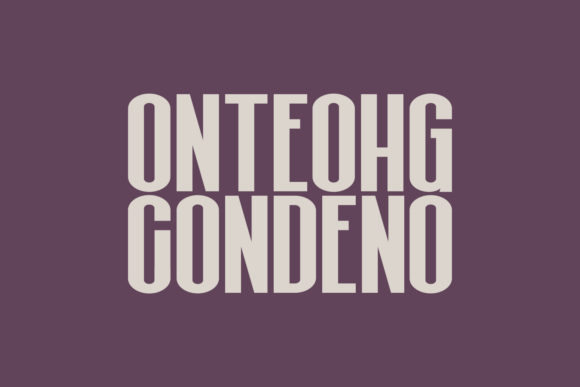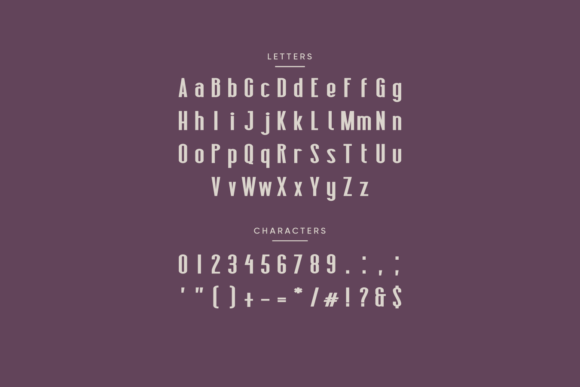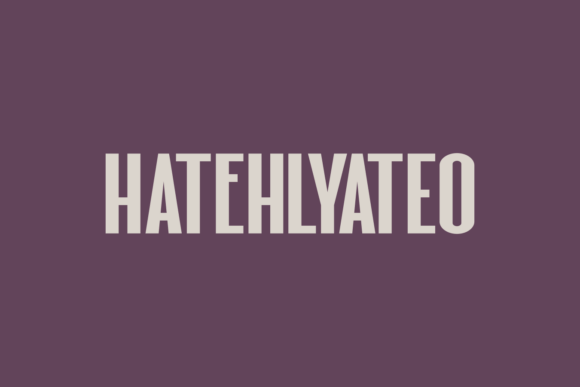
Introducing Ghonteo Font: The Ultimate Modern Condensed Display Font
In the world of typography, a font can make or break a design. For designers and crafters looking to elevate their visual game, Ghonteo Font is an exciting addition to the font family. This modern condensed display font is specifically designed to command attention and amplify visual impact, making it perfect for a wide range of applications.
The Design Behind Ghonteo
Ghonteo boasts sleek proportions and a bold character that instantly grabs attention. Its clean lines and compact structure ensure versatility while maintaining a striking presence across both digital and print media. This font is not just about aesthetics; it’s about making a statement. Whether you’re working on branding, posters, packaging, headlines, logos, motion graphics, movie titles, magazines, promotional materials, or urban fashion projects, Ghonteo adds a contemporary edge to any design.
Key Features of Ghonteo Font
- Modern Condensed Design: Ghonteo’s sleek and compact structure makes it perfect for headlines, titles, and short phrases where impact is key.
- Bold Character: The font’s bold character ensures that your message is not just seen but also remembered.
- Versatility: Ghonteo is designed to be versatile, making it suitable for a wide range of projects from digital screens to print materials.
- Clean Lines: The clean lines of Ghonteo contribute to its modern look, ensuring that your designs look crisp and professional.
Applications of Ghonteo Font
Ghonteo’s adaptability makes it an excellent choice for various design projects. Here are some of the areas where Ghonteo truly shines:
- Branding: Use Ghonteo to create memorable logos and brand names that stand out.
- Posters and Flyers: The font’s bold and condensed style makes it perfect for poster designs that need to capture attention quickly.
- Packaging: Add a modern touch to your product packaging with Ghonteo’s sleek and impactful typography.
- Headlines and Logos: Ghonteo is ideal for creating headlines and logos that need to make a strong visual impact.
- Motion Graphics and Movie Titles: The font’s modern look is well-suited for motion graphics and movie titles that require a dynamic and engaging feel.
- Magazines and Promotional Materials: Use Ghonteo to create compelling magazine headlines and promotional materials that draw readers in.
- Urban Fashion Projects: The contemporary edge of Ghonteo makes it a great fit for urban fashion projects, including clothing lines and accessories.
Why Choose Ghonteo Font?
In a sea of fonts, Ghonteo stands out for several reasons:
- Uniqueness: Ghonteo offers a unique blend of modernity and impact, making your designs instantly recognizable.
- Legibility: Despite its condensed style, Ghonteo maintains high legibility, ensuring your message is always clear.
- Adaptability: The font’s versatility means you can use it across various mediums without compromising on style or impact.
Ghonteo Font is more than just a typeface; it’s a design statement. Its modern condensed display style, bold character, and clean lines make it an excellent choice for designers and crafters looking to elevate their visual impact. Whether you’re working on a branding project, creating a poster, or designing a fashion line, Ghonteo is sure to add a contemporary edge to your work. With its versatility and striking presence, Ghonteo is poised to become a go-to font for projects that demand attention and make a lasting impression.